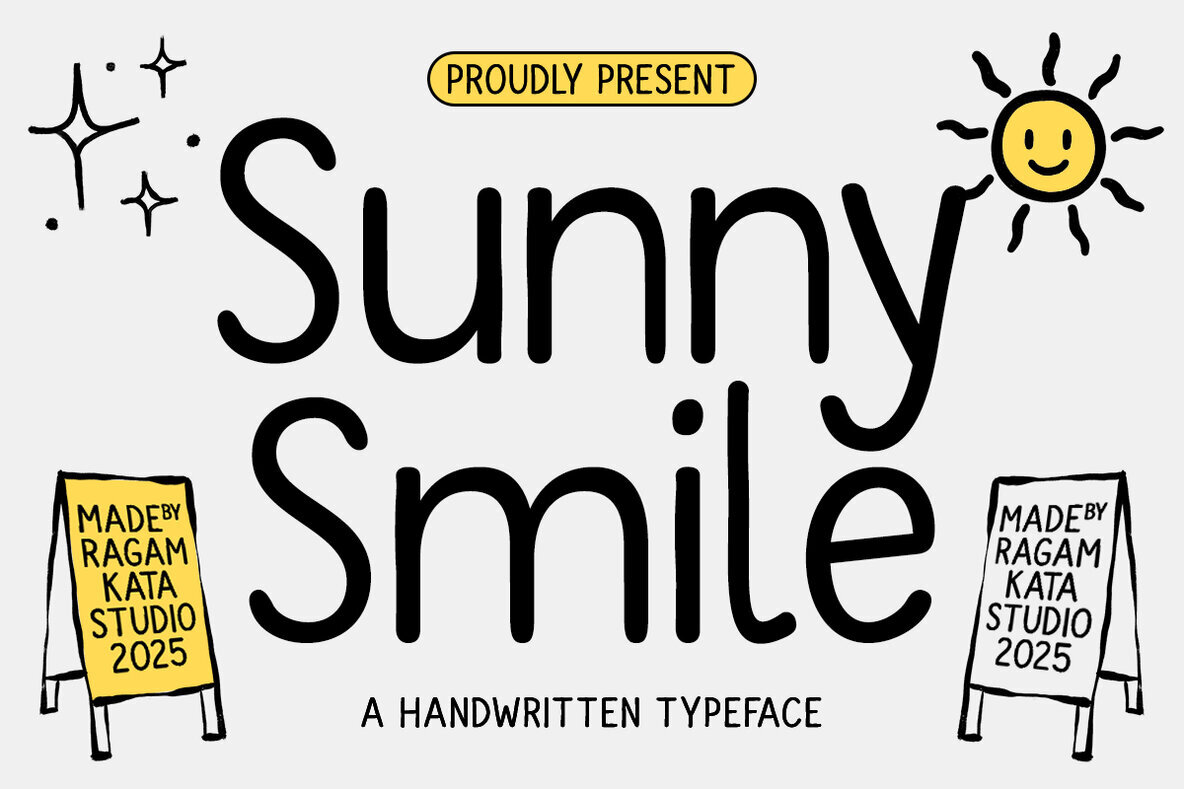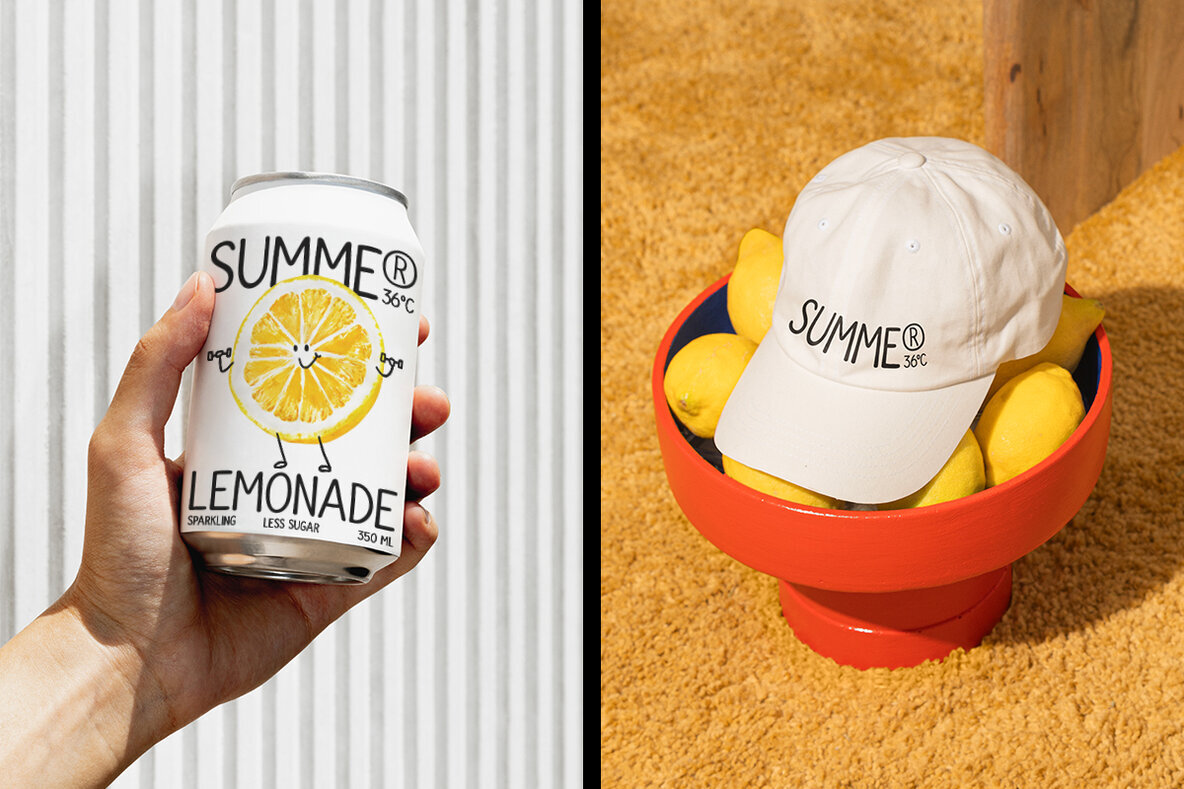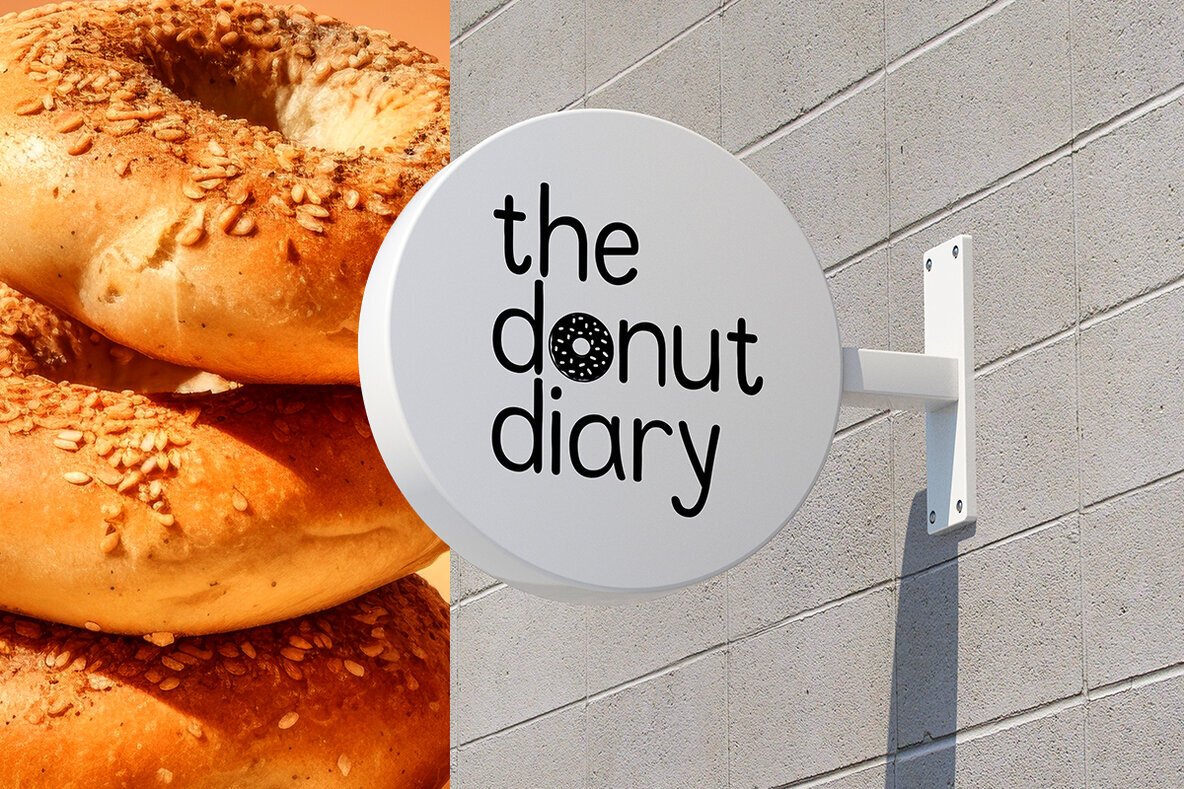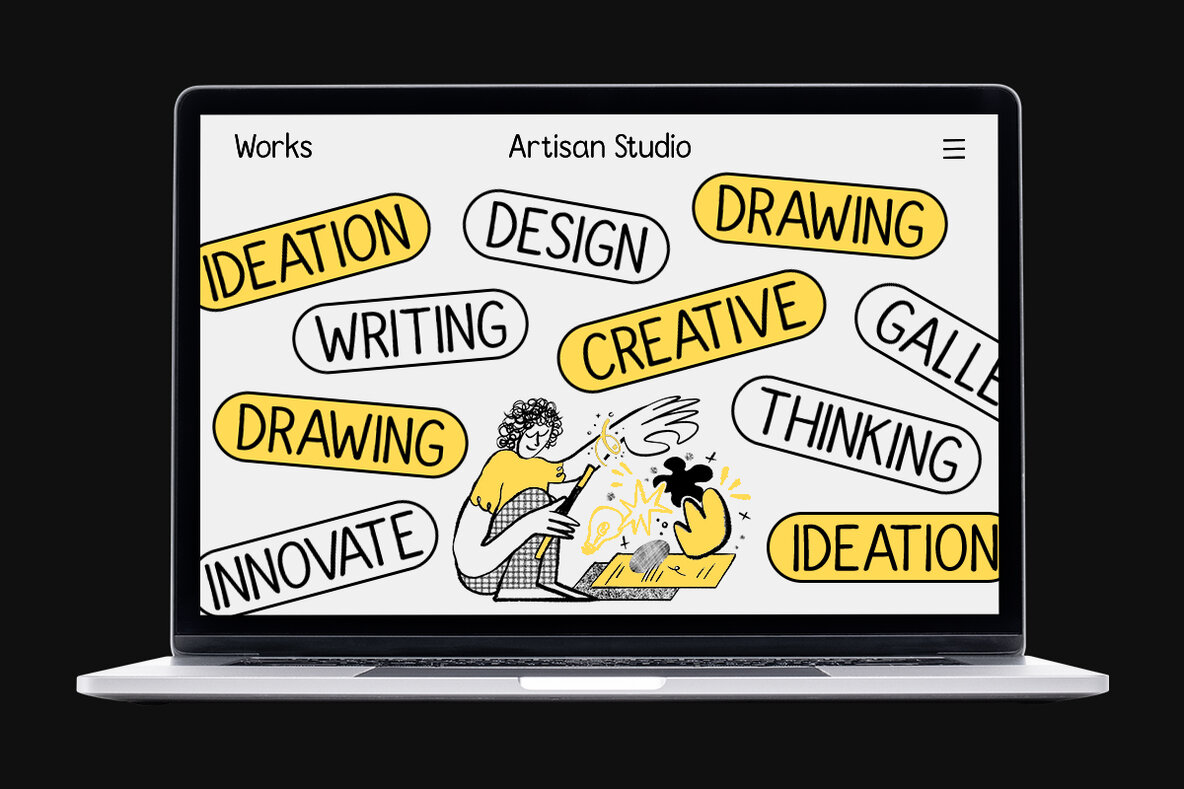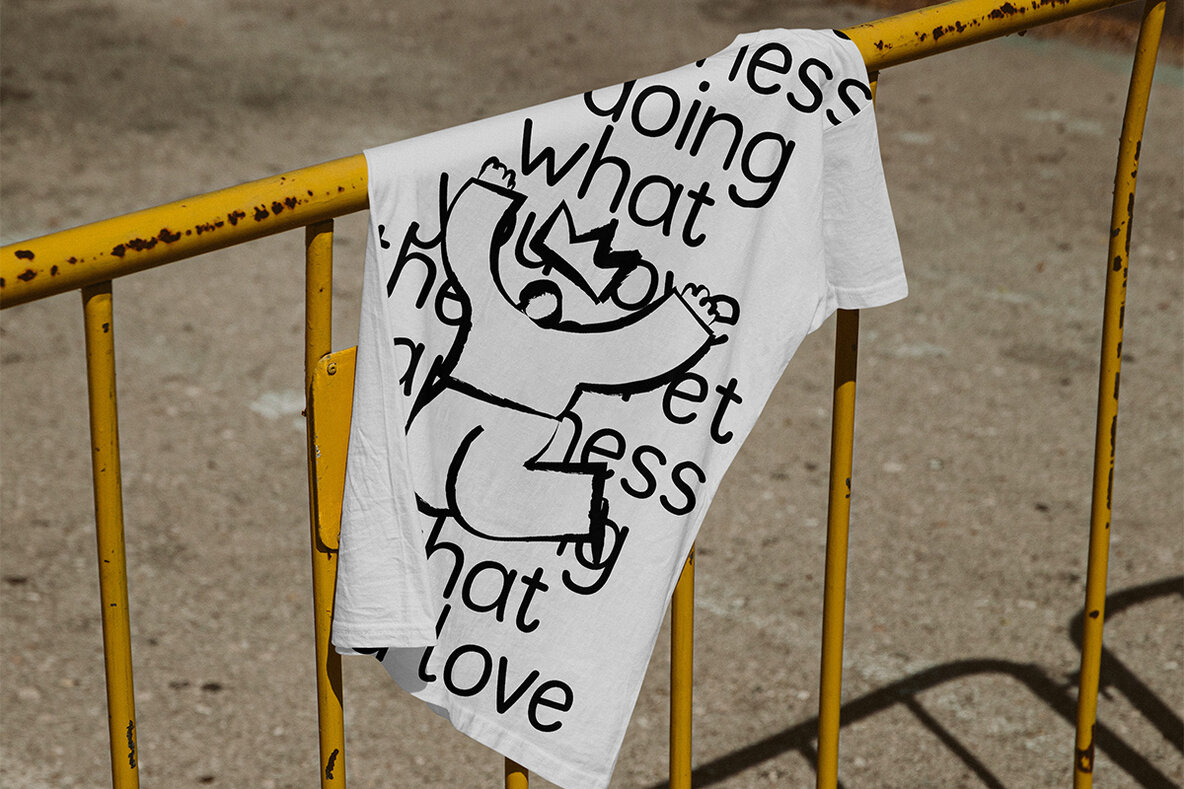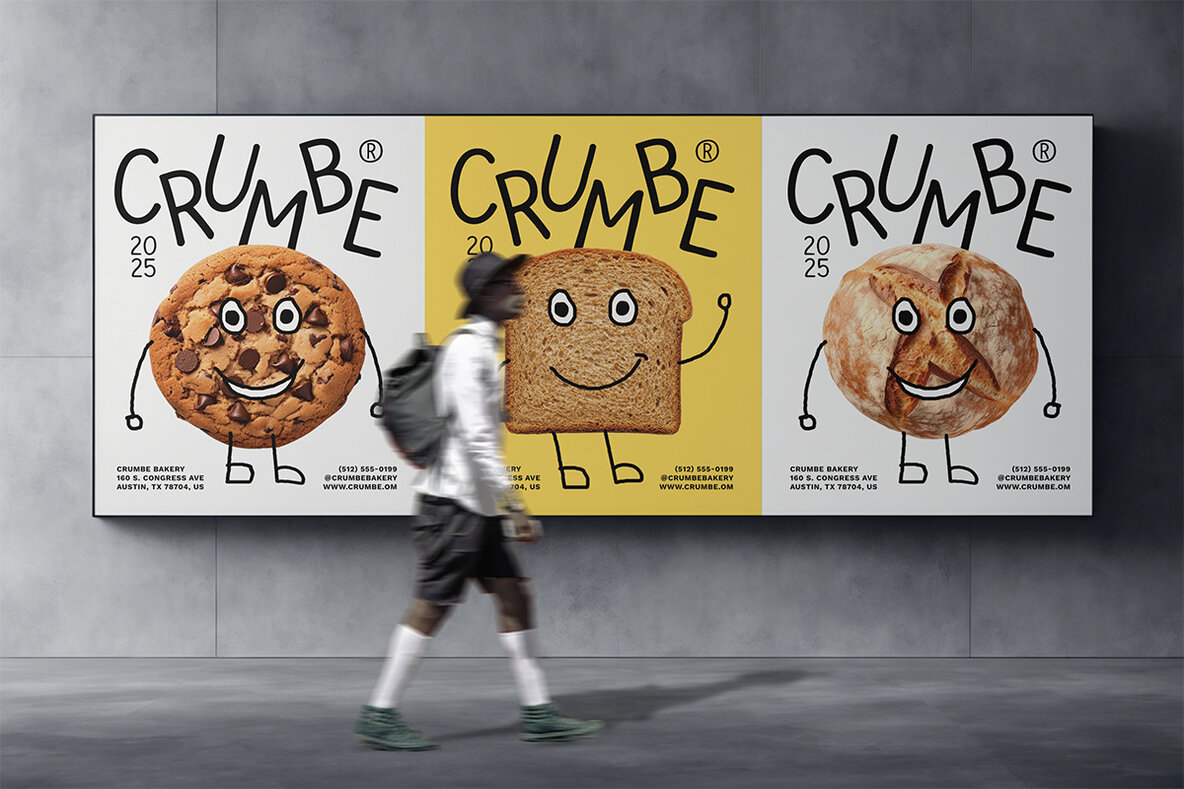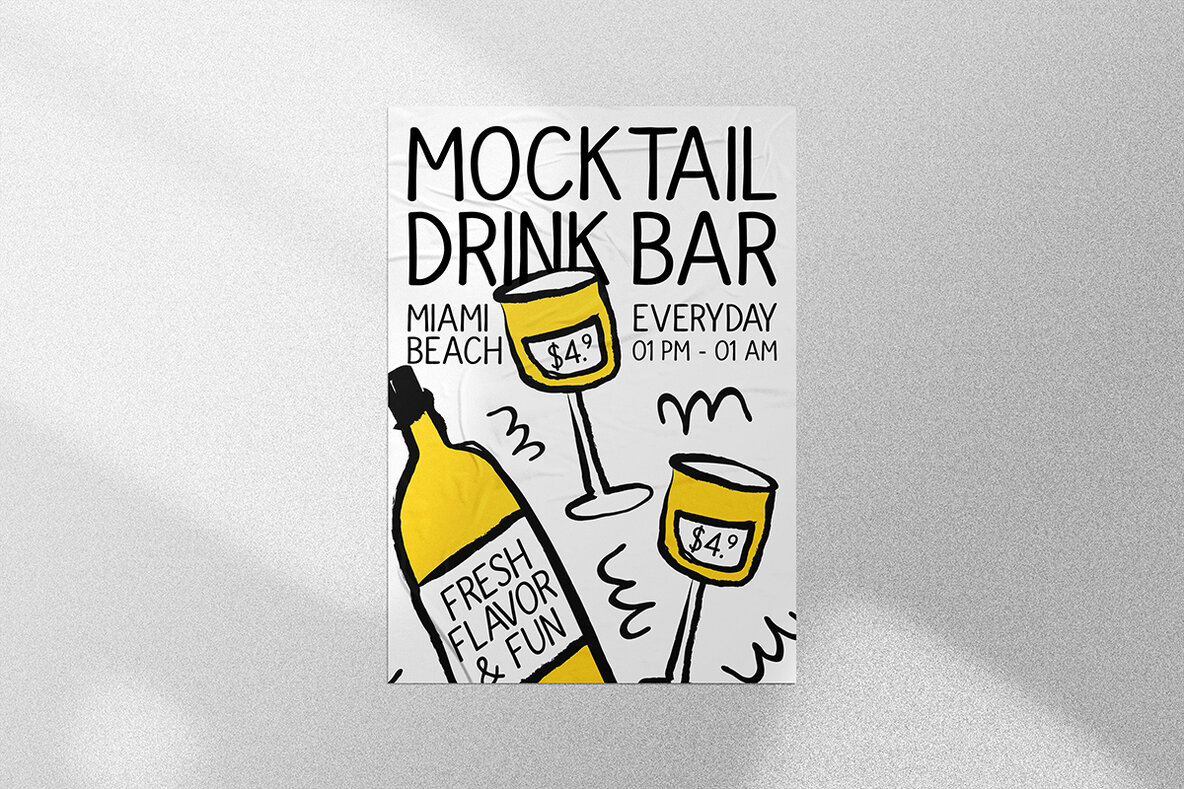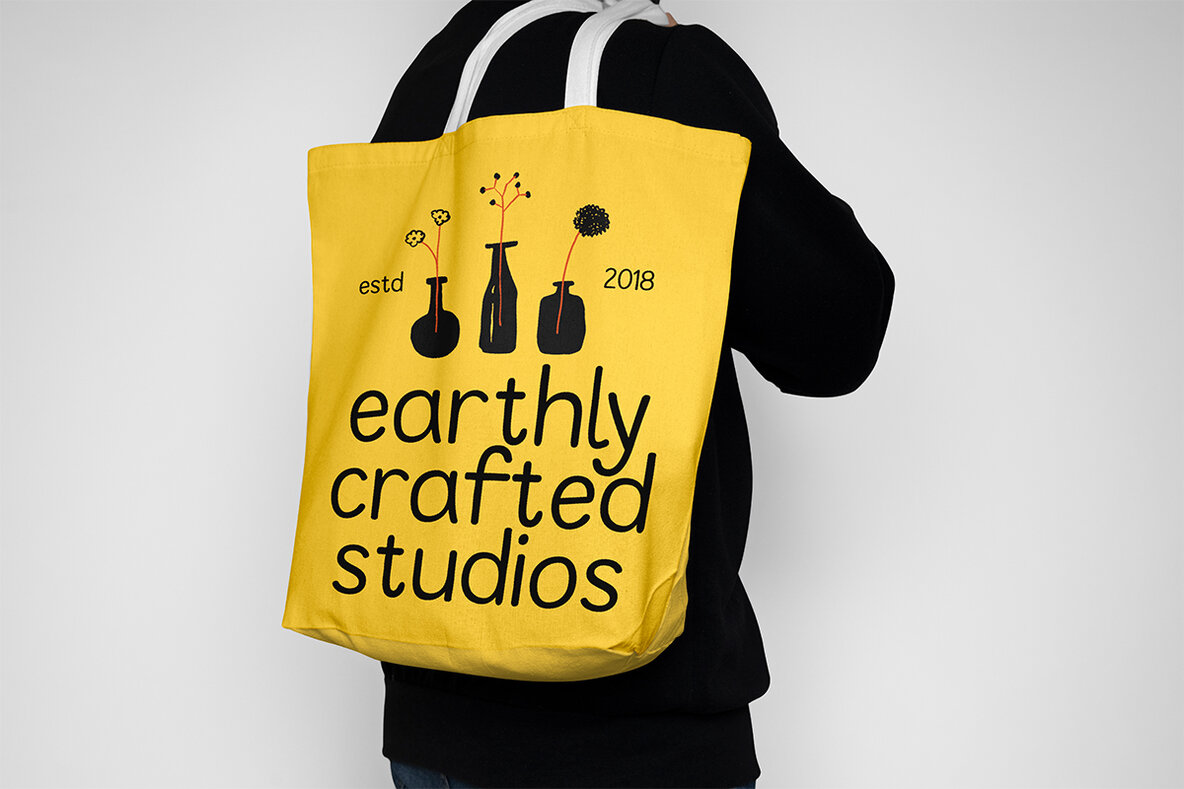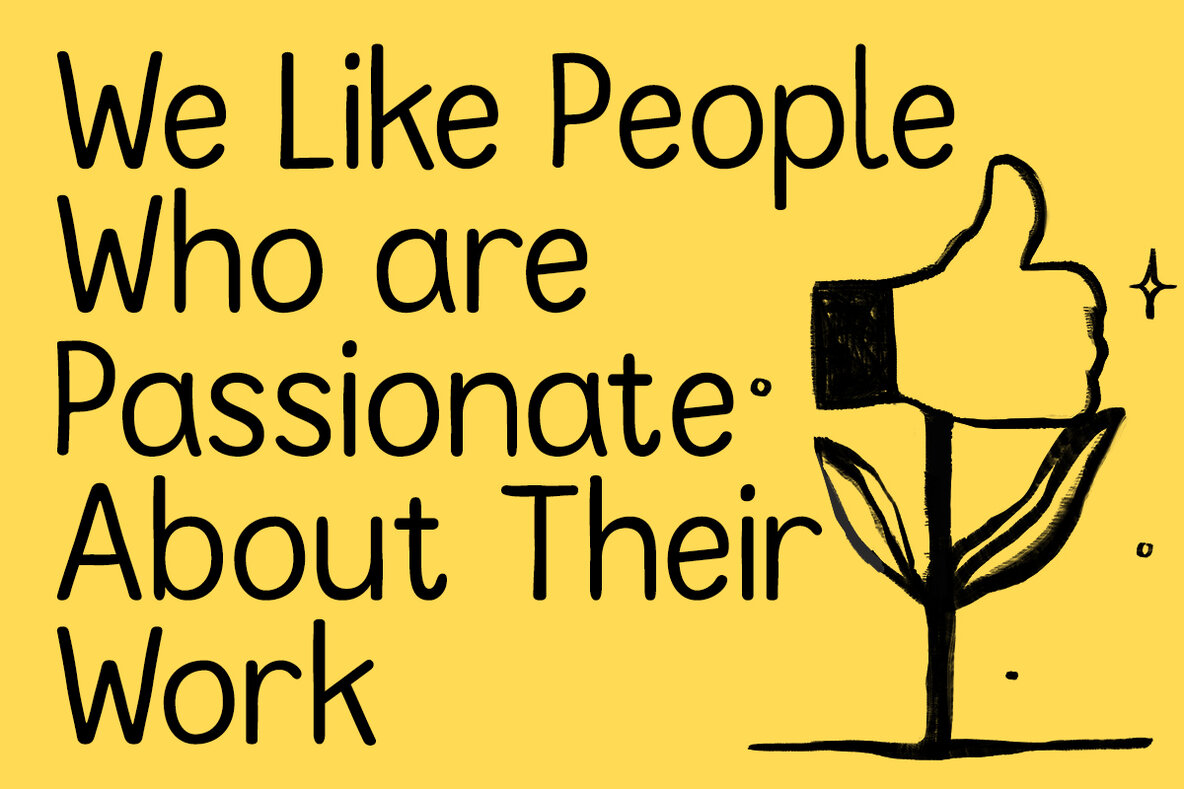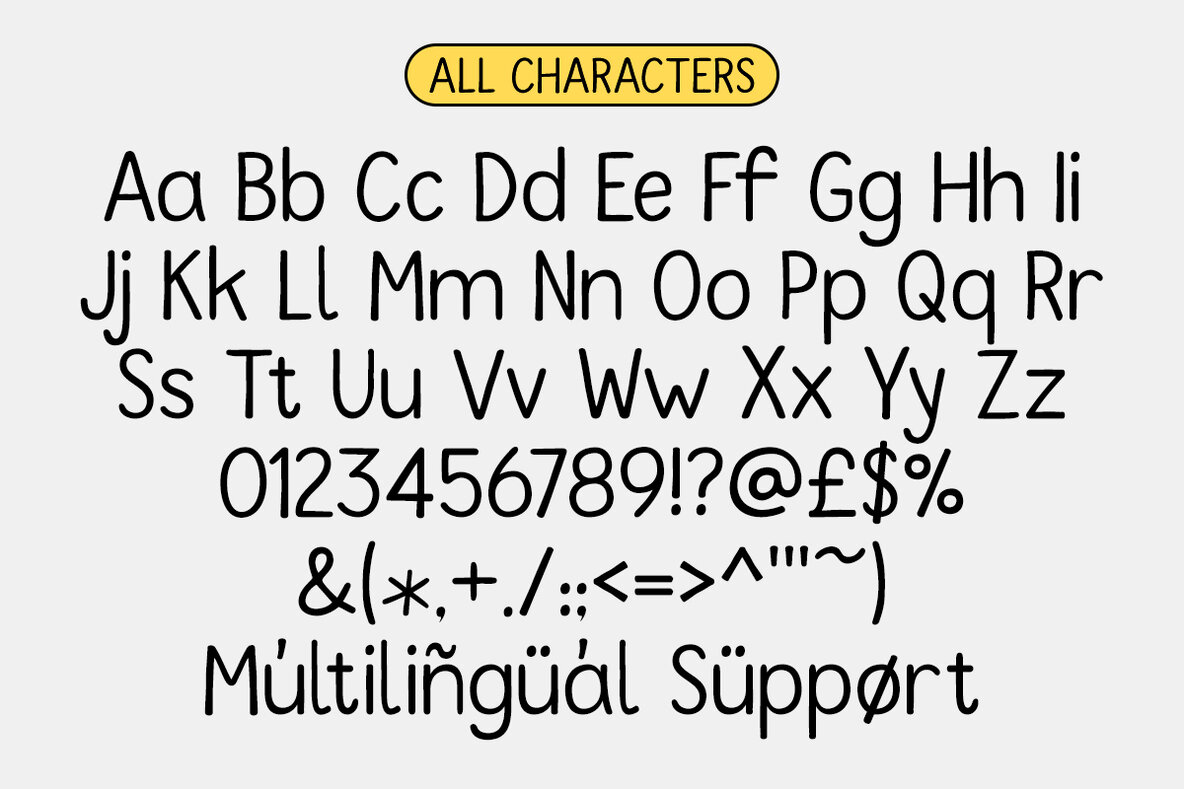
Sunny Smile Font
Sunny Smile Regular
Sunny Smile captures the essence of cheerful, handcrafted lettering. Its rounded, approachable forms lend a sense of warmth and familiarity, making it an inviting choice for a variety of design applications. The organic lines retain a modern yet casual character, ideal for graphic designers seeking a blend of friendliness and style in their typography. Perfect for children’s projects, playful branding, and expressive packaging, this handwritten font introduces a naturally joyful tone. The gentle curves and easy readability ensure versatility without sacrificing personality.Sunny Smile: Playful Handwritten Font with a Joyful Spirit